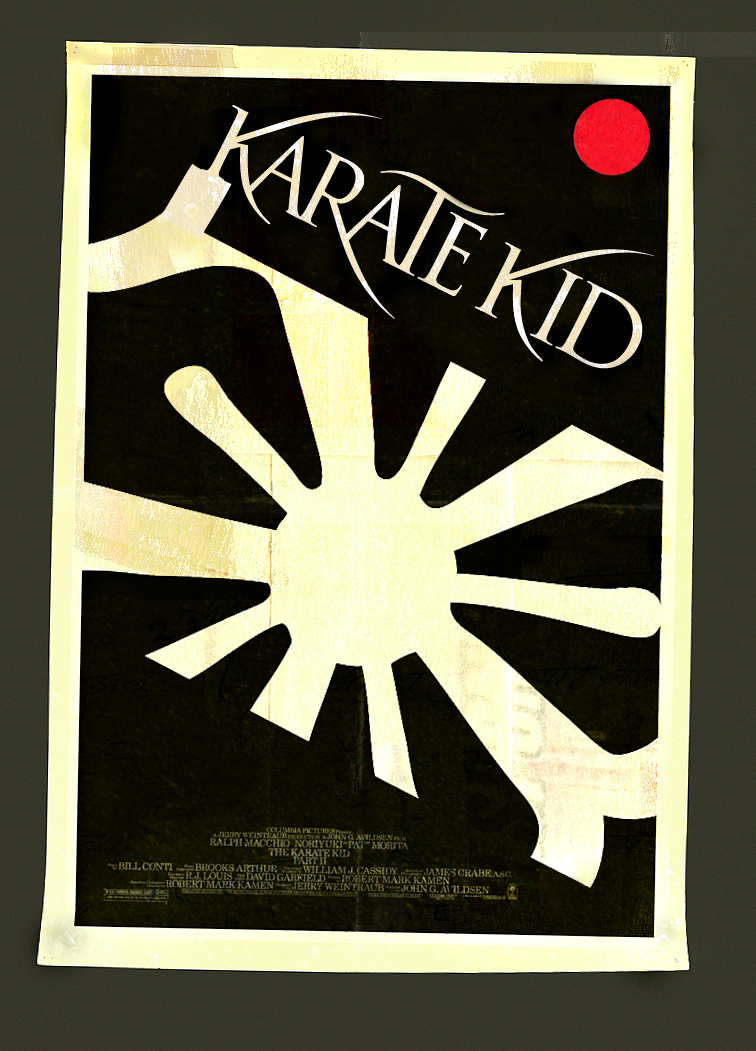
Type Battle 34 // Trajan swashes
It's awards season in Hollywood, which means that little golden statues will soon be bestowed upon many of our favorite (or least favorite) motion pictures. We all know that Trajan is Hollywood's font-of-choice when it comes to movie titles and posters, so it's only fitting that we spotlight Trajan in Battle 34.
// THE CHALLENGE
Create at least three swash characters for Trajan. You can either:
A) Set the word "BLOCKBUSTER" or any other movie-related word.
or
B) Design a movie poster using your swash characters in the movie title.
Winner take all, no holds barred. May the best designer win.
// REQUIREMENTS
- Color: Black and White only (colors are okay only for movie posters)
// ABOUT TYPOPHILE TYPE BATTLES
This is your chance to stretch your type muscles on a weekly basis. You have one week to create and submit your entry. Anyone may submit a design response to the challenge. You may enter as often as you wish. Post anytime. Critiques and comments are welcome throughout the game, from participants and spectators alike. Smack talk is encouraged.
As with any street battle, there is no panel of judges and no prize — only the ability to call yourself the best on the block.
It's the combination between Bickham Script and Trajan Pro, just so you know.
And for the record, Helvetica movie using Trajan? Hmm, interesting.
Hmmm, Maybe we can get a clarification from Ngoc, I thought we had to draw our own swashes? I am probably wrong, it does not say that above--carry on :-)
I'm sorry about not drawing all the swashes myself because I simply can't draw complex lines with my notebook trackpad, my fingers aches doing that *~*. If I'd get a mouse or tablet, I'll try next time... :D
That would be tough :-)
Good one, Pica!
To clarify, whenever a battle calls for the creation of an element relating to type design, it means one should *create* an original drawing.
If this isn't possible, you can go ahead and take existing elements from the typeface of your choice, frankenstein the shapes and submit them as your creation, but at this point in time you must be aware the community then has every right to call you on it and potentially ruin your reputation in the forums … forever! Muuhahahahaa :P
Seriously - try to draw your own.
I suck at this, but it was fun. :-)
Chris, love your Helvetica thing!
Remember... the angle of the originating tool is roughly thirty degrees and it is a chiseled edge tool.
Pica, your S is spot on for the most part.
definitely love the S, pica.
my attempt, with less swashy.
the shape of the K is awkward, like a crane. :)
Michael,
Hah! Point taken. I guess you can tell I don't really get the "handcraft" basics yet.
I just did something I thought would look nice. :-}
Please do not take that wrong.... what you did does look nice. I was simply pointing out the fundamentals of the tool used.
Michael, I'm hearing a lotta talk there, genius, let's see ya walk the walk! :)
Seriously though, take a crack at this. It's right up your alley! At least print out a couple letters and have at them with a pen; I'd love to see what develops.
If I can get out from under this job I will. I am peeking in here on one computer while I am scanning and digitizing on another : )
It is hell when work interferes with procrastination, isn't it, Michael? :-)
Dammit Chris... you interrupted my daydream : )
I was creating a font that will replace all other fonts. You just select it in any program and it morphs to suit the users need... right on the screen.
Pure genius, Michael ;-)
Going to call it Fluid : )
Nice exercise, I really enjoyed this one!
Love the karate kid poster. Usually i hate both trajan and swashes, but i love the 'K's.
Jonathan, nice work, those fit right in!
Great swashes, John!
Subtle swashes.
Thank you pica and James! Yeah, I did the type design first and then fit in the swashes.
Pica, yours is excellent!